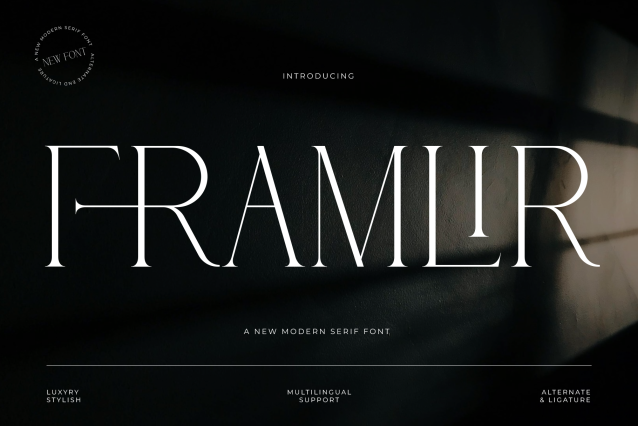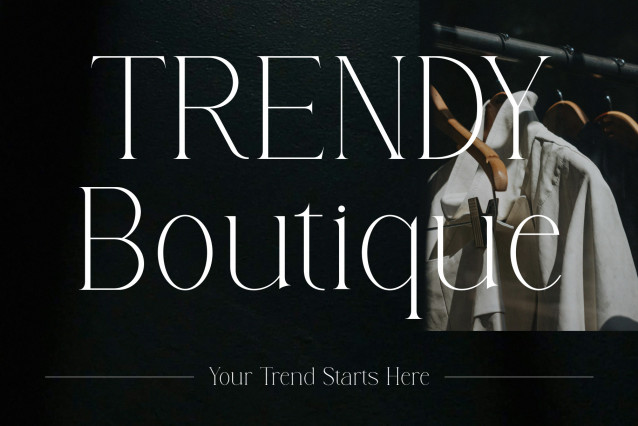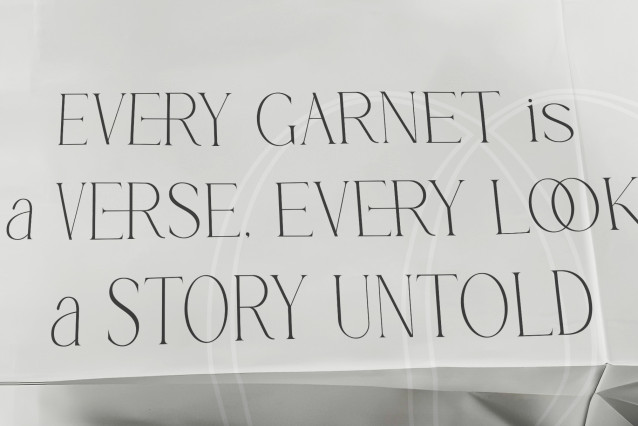
Framlir Font
Introducing **Framlir Font** the elegant, beautiful, and modern Serif. With its modern and minimalist look, Framlir brings a luxurious, classy, ​​and clean style to your projects such as websites, modern logos, brand identities, social media quotes, wedding stationery, magazines, and more!
Framlir features unique and classy capital letters A to Z and also comes with unique alternates making Framlir a beautiful font that can be customized for various projects and jobs you want.
Framlir is perfect for: logos, brands, wedding invitations, business cards, greeting cards, posters, magazines, social media, agenda prints, and websites.
FEATURE:
* Uppercase and lowercase letters
* Multilingual Characters
* Numbers & punctuation
* Alternative styles and ligatures (on some fonts)